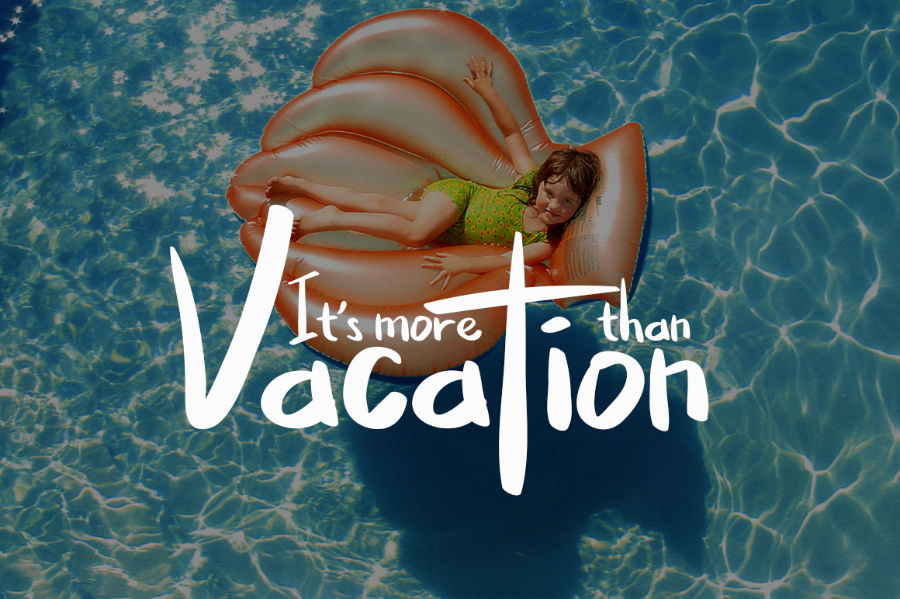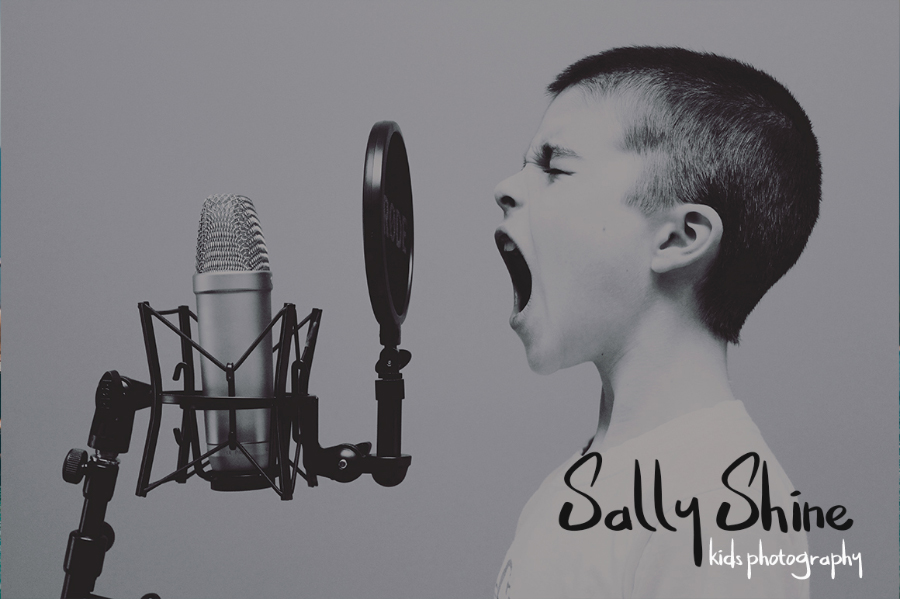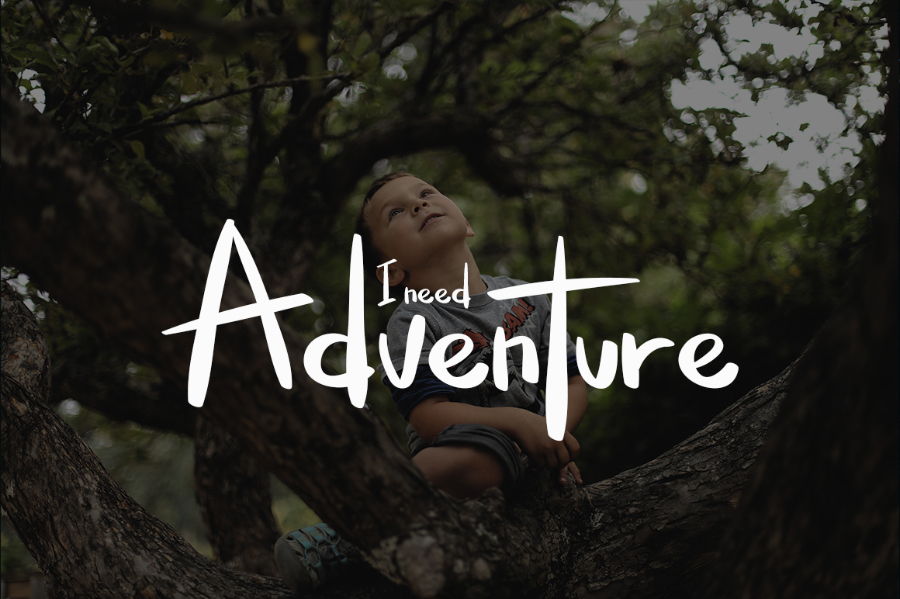
Little Jack Font Free Demo
Meet Little Jack Font Free Demo, a trial version of fun mixed-case font that gives the feeling of ‘jotting’ something down real fast! This hand-drawn fonts truly will give off a real personal touch to your projects. It is perfect for various design purposes such as editorial design, branding, and quote. This font will also work great on the cover title, poster, apparel design, product packaging, label, special events or anything that need a hand-drawn taste.